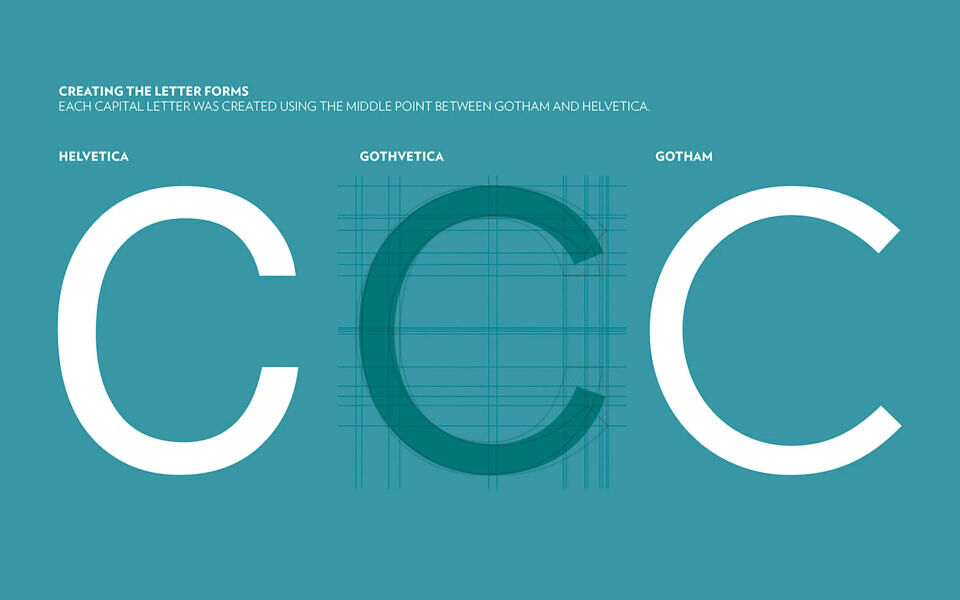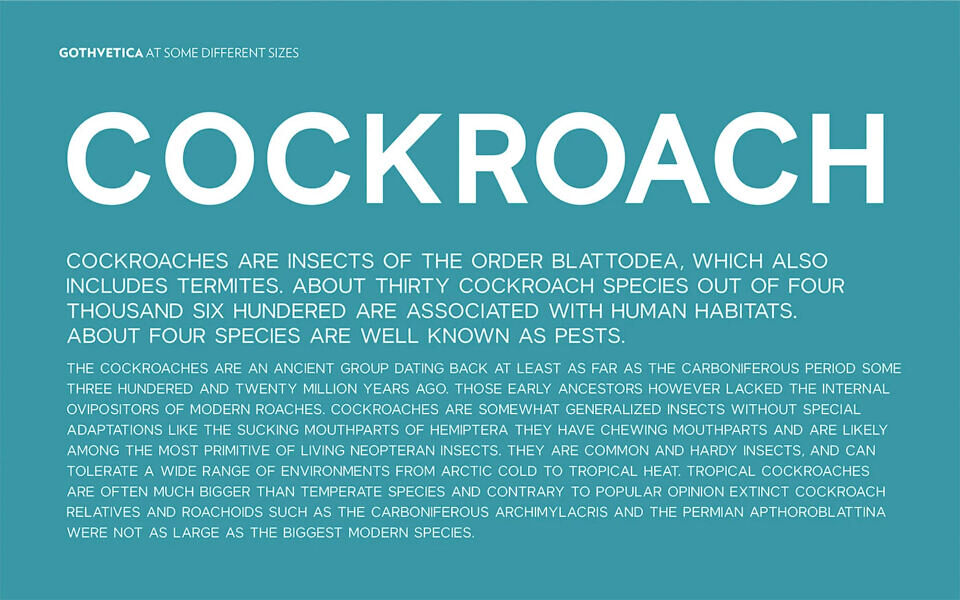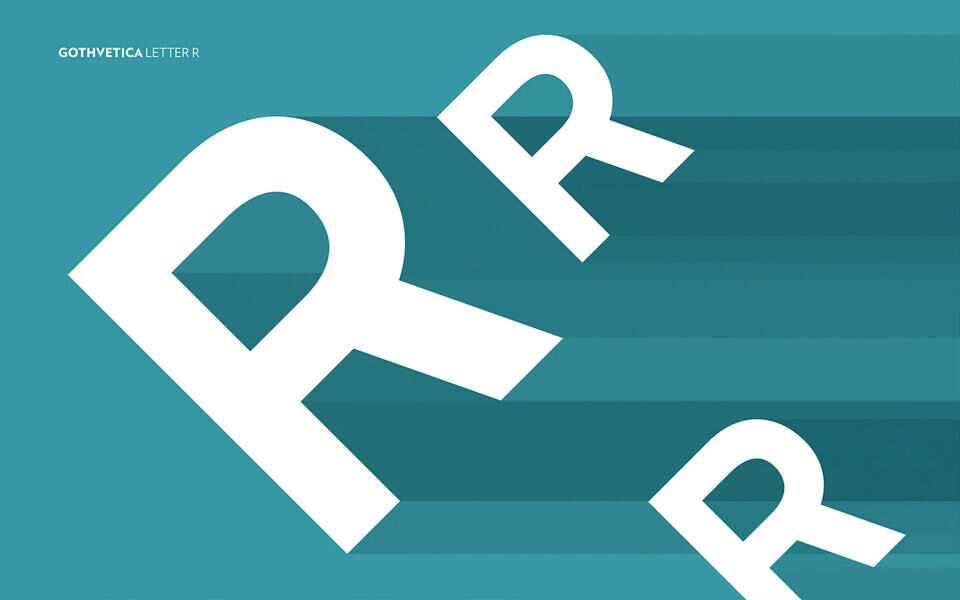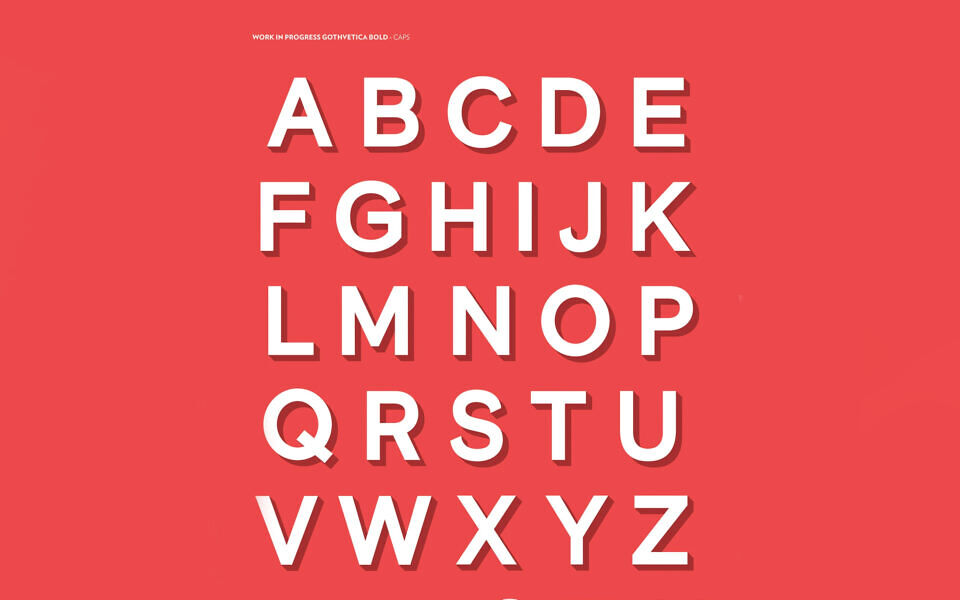
Gothvetica started as a question: How similar are Gotham and Helvetica as typefaces, what would it look like if Gotham and Helvetica were merged? We looked at how similar the letter forms were and saw that it would be possible to create a typeface that is exactly inbetween the two.
For now we only have the Book weight in all caps (letters only). In the meantime we are working on the Bold weight with a Light weight to follow.